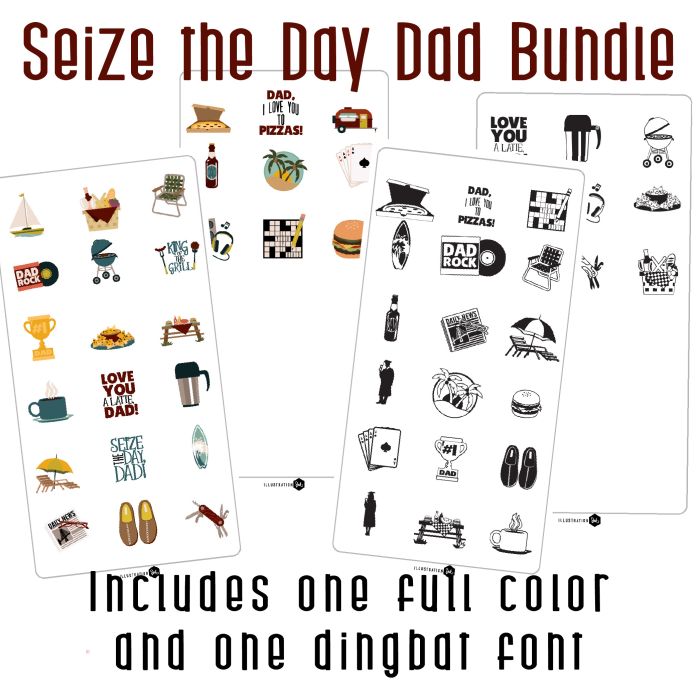
This bundle includes one full color font and one dingbat font for one low price! With two dingbats you get 54 total images with 27 full color dad favorites imagery and 27 dingbat dad favorite imagery, Glyphs are A-Z and 0. Both fonts are perfect for Father's Day, cards, crafts, gifts, decor, classrooms, planner stickers, scrap book pages and more!